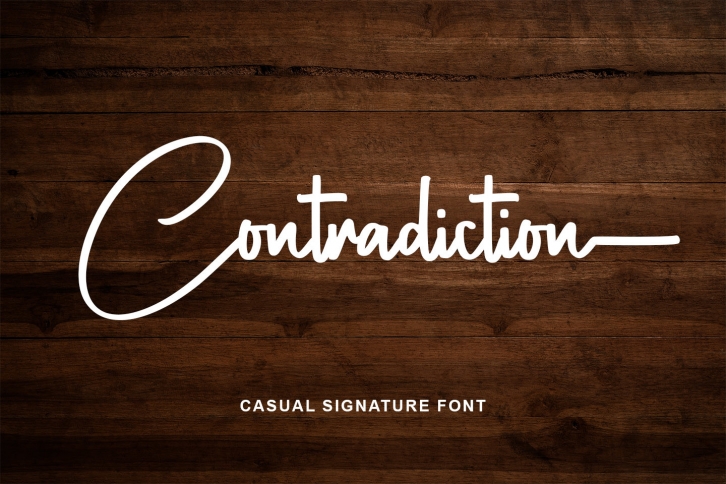
introducing
CONTRADICTION
– casual signature font –
CONTRADICTION is naturally strong & Bold signature font.
It is great for branding, logos, t-shirt designs, tote bag designs, cards, banners, social media, and more.
– Uppercase
– Lowercase
– Numeral
– Ligatures
– Multilingual Support
– Swash
– Punctuation
– PUA encoded